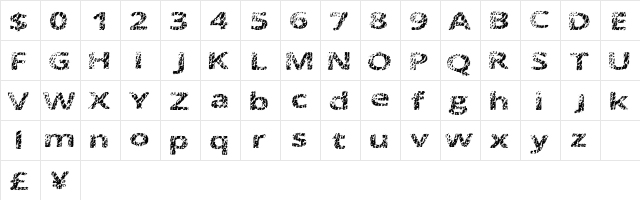
DoctorMeow Regular
| Foundry | Xerographer Fonts |
| Designer | Xerographer Fonts Max Infeld |
Design Context for DoctorMeow Typeface
DoctorMeow is a composed and adaptable typeface that performs quietly and consistently across a wide range of design contexts.